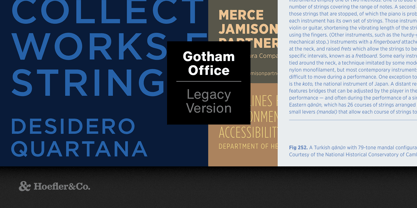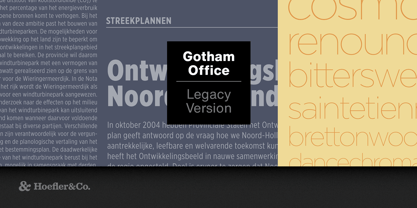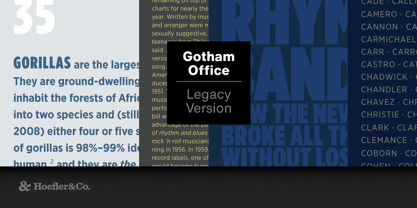
Gotham® Office
by Hoefler & Co.
The Gotham Office Font Family was designed by Jonathan Hoefler and Tobias Frere-Jones and published by Hoefler & Co.. Gotham Office contains 4 styles and family package options. More about this family
Every designer has admired the no-nonsense lettering of the American vernacular, those letters of paint, plaster, neon, glass and steel that figure so prominently in the urban landscape. From these humble beginnings came Gotham, a hard-working typeface for the ages.
The Gotham family has been updated in April 2026 to include a variable font, additional weights, and a character set that includes Vietnamese, please see the font family named 'Gotham' . Gotham Office does not include these additional features.
Designers: Jonathan Hoefler and Tobias Frere-Jones